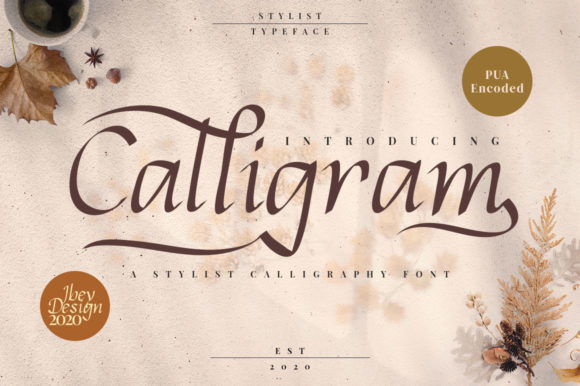
The Magic of Calligram Font: Elevate Your Designs with Elegance
I’ll never forget the time I was working on a wedding invitation project, and my client asked for a font that would make their guests feel like they’re receiving a handwritten letter from a luxury stationery store. I scoured the internet, tried countless fonts, but nothing seemed to fit the bill. That was until I stumbled upon the Calligram Font. ✨ It was love at first sight! The elegant strokes, the flowing connections, and the whimsical charm – it was exactly what I needed to bring my design to life.
An Honest Review of Calligram Font
- ✨ Unique and stylish calligraphy that adds a personal touch to any design
- ✅ Perfect for a variety of applications, from photography and watermarks to social media posts and product packaging
- 💫 Highly legible, even at small sizes
- 🎨 Versatile and adaptable to different design styles and themes
While the Calligram Font is an amazing addition to any design project, there are a few things to keep in mind: 🤔
- ⚠️ Some characters may not work well in all contexts, so be sure to test and adjust as needed
- ⚠️ May require some manual kerning to achieve optimal results
- Experiment with OpenType features, such as stylistic alternates and glyphs, to add more personality to your text
The Story Behind Calligram Font
The Calligram Font was inspired by the art of calligraphy and the beauty of handwritten letters. Its creator, a talented type designer, wanted to craft a font that would bring a touch of elegance and sophistication to any design project. With its unique blend of classic and modern elements, the Calligram Font has become a favorite among designers and crafters alike.
Q: What is the Calligram Font best used for?
A: The Calligram Font is perfect for adding a personal charm to photography, watermarks, social media posts, advertisements, logos & branding, invitations, product designs, labels, stationery, wedding designs, product packaging, and special events.
Q: Is the Calligram Font easy to read?
A: Yes, the Calligram Font is highly legible, even at small sizes. However, as with any font, it’s essential to test and adjust as needed to ensure optimal results.